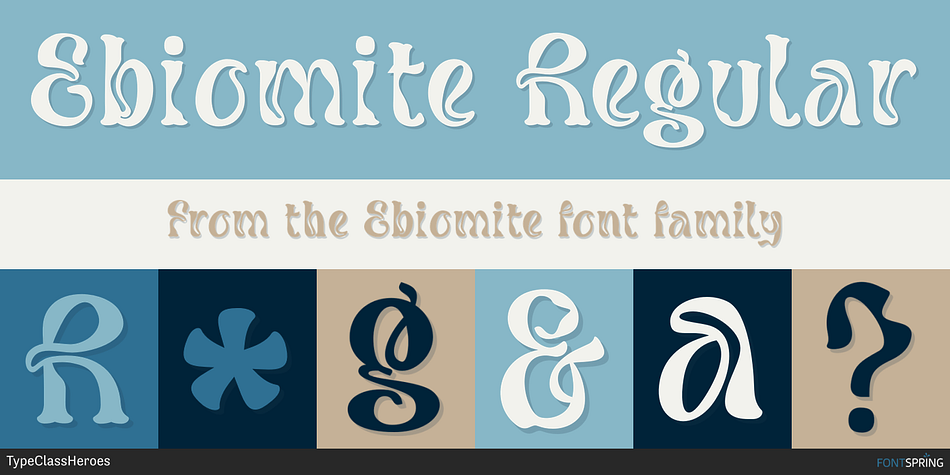
Ebiomite Regular
Ebiomite is an art nouveau font family published by TypeClassHeroes.
This offers a variety of options for unique design. Stylish letters that seem to wave and twist harmoniously together to form unique & elegant typography designs.